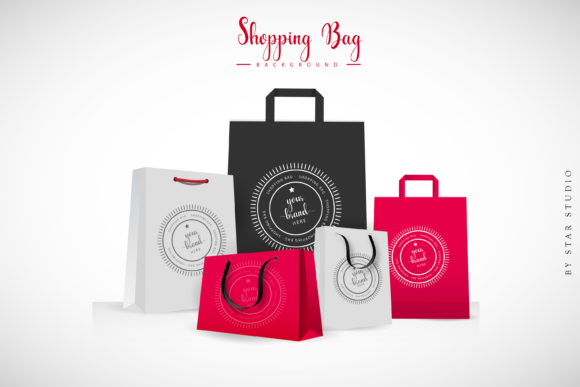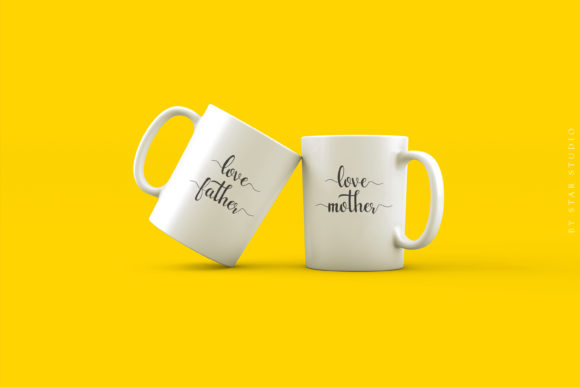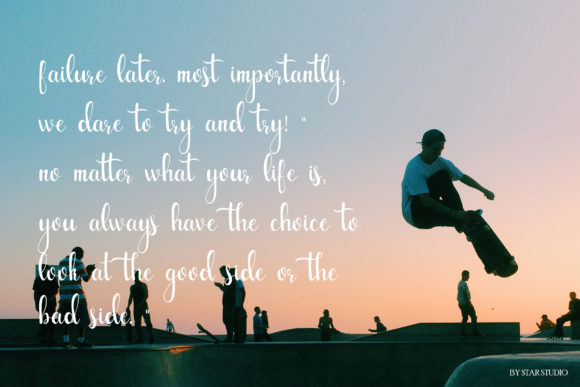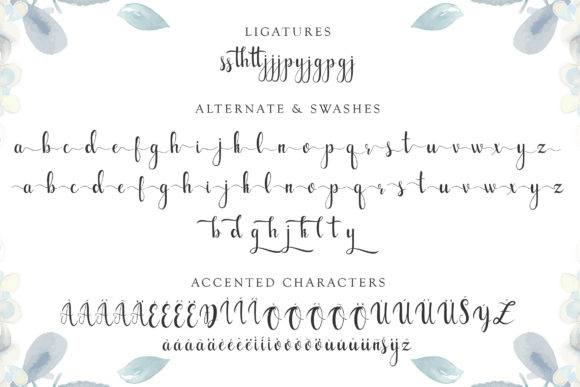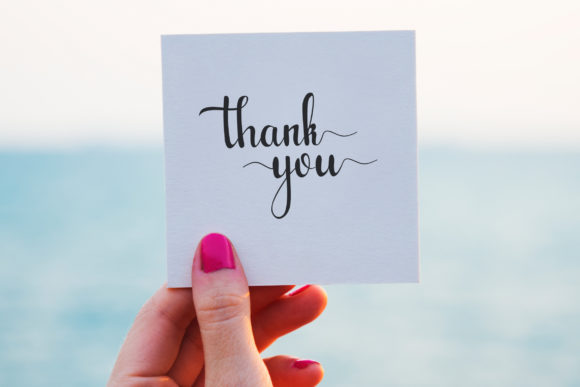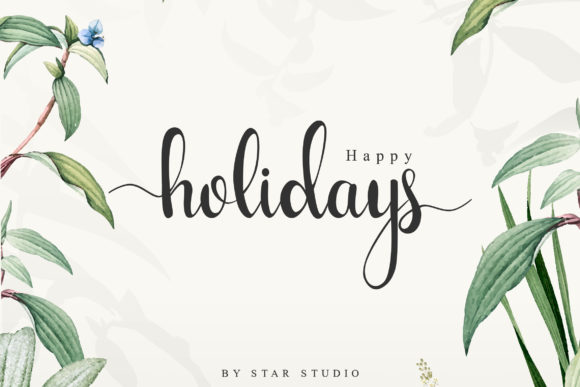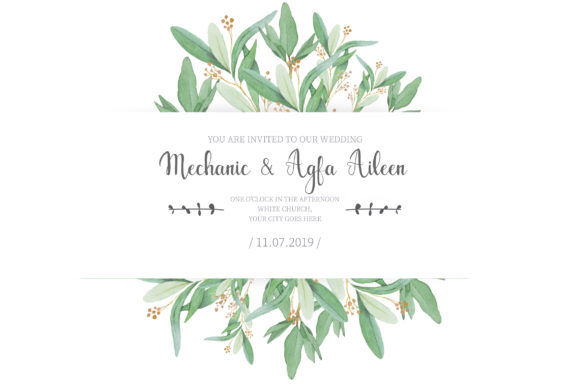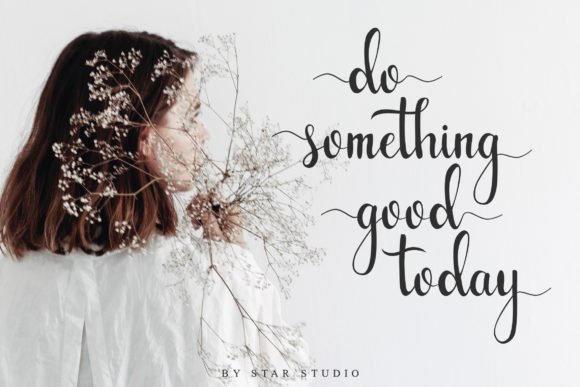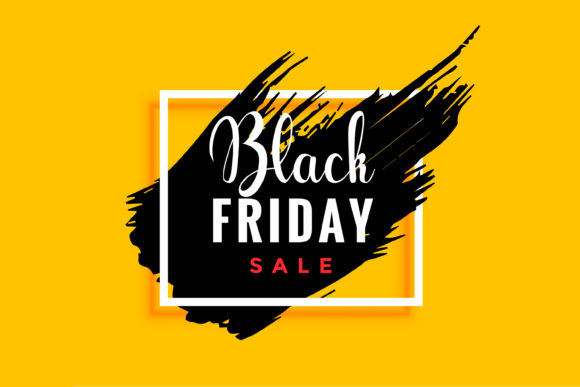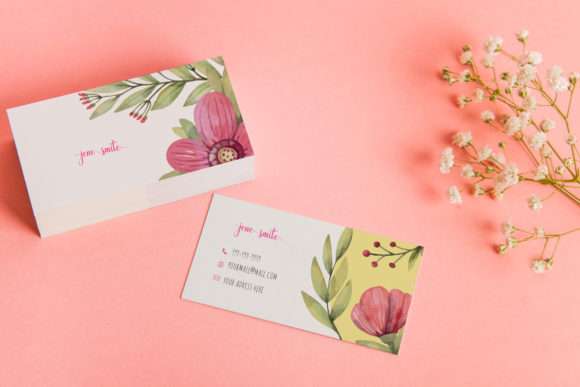
Gabylia Script Font
About Gabylia Script Font
The Gabylia is a modern script font. It has a great readability and is perfect for adding an elegant feel to your designs.